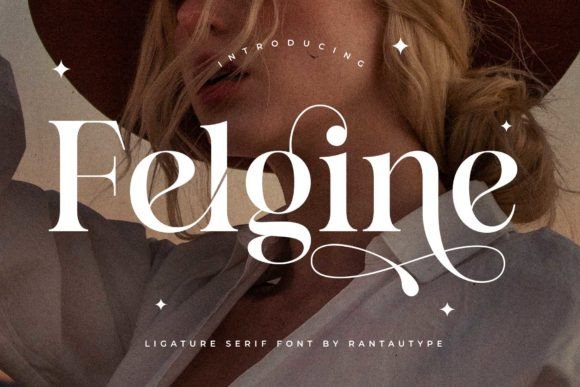
Introduce yourself to the world of typography with Felgine Font, the epitome of elegance and sophistication in the realm of serif fonts. Its carefully crafted characters, brimming with charm and personality, will captivate your audience and leave a lasting impression.
Meet Felgine, the ultimate font for creating captivating quotes that resonate with your audience. Its graceful curves and striking contrast create a visual masterpiece that commands attention and evokes emotions. With Felgine as your companion, your words will dance on the page, inviting readers to immerse themselves in your message.
Step into the world of fashion and lifestyle with Felgine Font, your trusted ally in designing logos, titles, magazines, and more. Its innate elegance and chic demeanor effortlessly elevate your designs to new heights, making them shine with a unique and unforgettable charm. Felgine ensures your creations stand out from the crowd, captivating the hearts and minds of your audience.
With Felgine Font, typography transforms into an art form, allowing you to weave tales of beauty and intrigue with every letter you type. Its versatility knows no bounds, catering to a myriad of projects, from personal branding to editorial layouts. Experience the joy of creating designs that exude sophistication and leave an indelible mark on your audience's memory.
Immerse yourself in the world of typography and embark on a creative journey like no other with Felgine Font. Elevate your designs to new heights, captivate your audience with your words, and create a visual symphony that resonates with elegance and beauty.